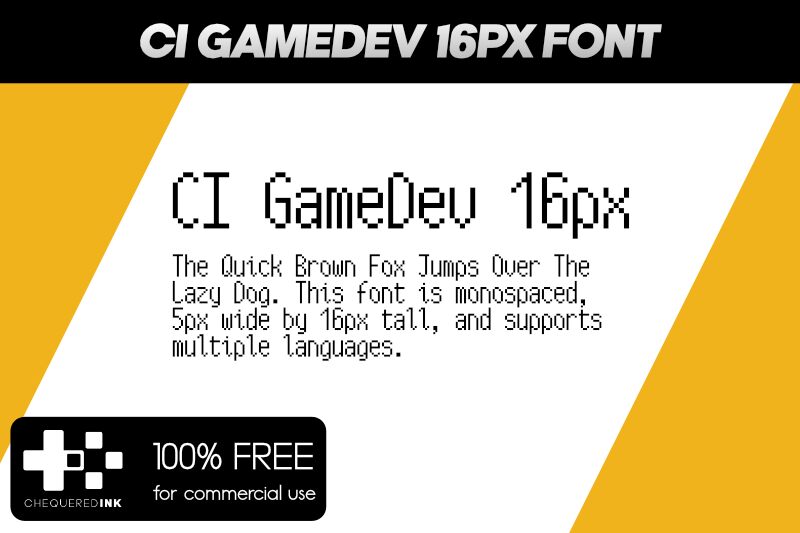
CI GameDev Regular
CI GameDev font combines a pixelated, geometric, and retro aesthetic. This condensed bitmap typeface from Chequered Ink carries a video game influence and a digital look that set the perfect tone for arcade games. Render clear lettering in artistic projects while adhering to an old-school aesthetic with this free font.
Give each visual project the final touches it needs by picking the right typeface. Use CI GameDev for branding designs, video gaming content, social media posts, posters, brochures, signs and banners, comics covers and pages; to write titles or body texts alike.